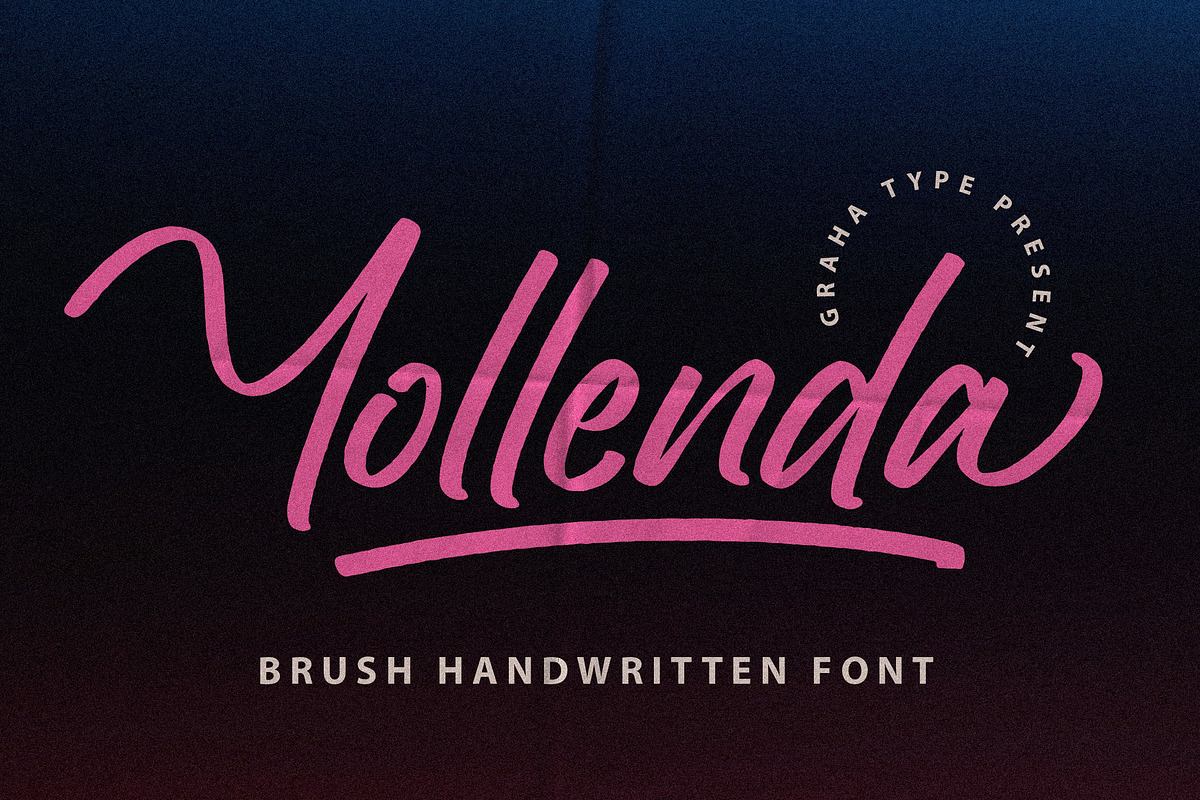
Yollenda - Brush Handwritten Free Download
Yollenda Brush Handwritten Font Free Download
Yollenda Brush Handwritten Font Free Download is a lively and expressive typeface that captures the energy and authenticity of a hand-painted brush script. With its bold strokes, flowing curves, and playful style, this font is perfect for designs that need a personal and artistic touch, such as logos, greeting cards, social media graphics, and product packaging.
Whether you're creating a unique brand identity or adding a fun, artistic flair to your creative projects, Yollenda Brush Handwritten Font Free Download brings a fresh, handwritten feel that stands out in both digital and print formats.